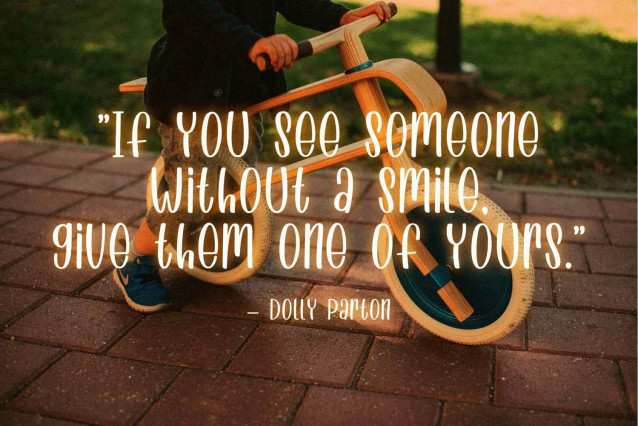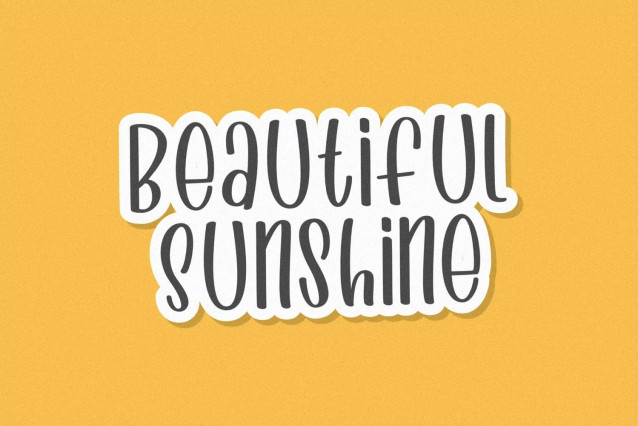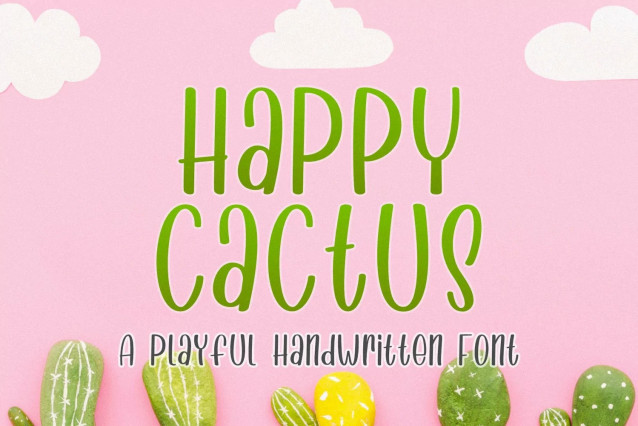
Happy Cactus Font
Happy Cactus Font is a cool, simple, and playful display font. Incredibly versatile, this font fits a wide pool of designs, elevating them to the highest levels. Add this font to your favorite creative ideas and notice how it makes them come alive!